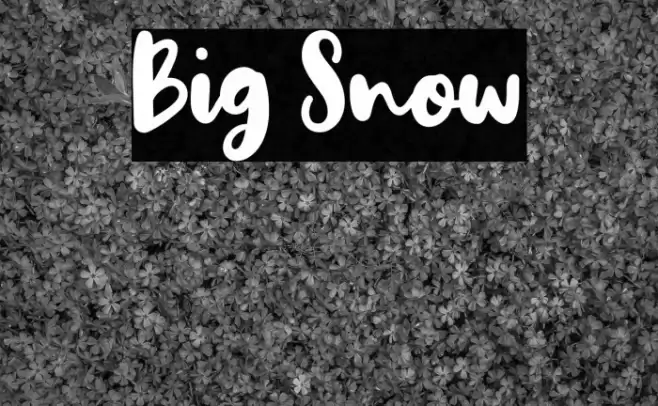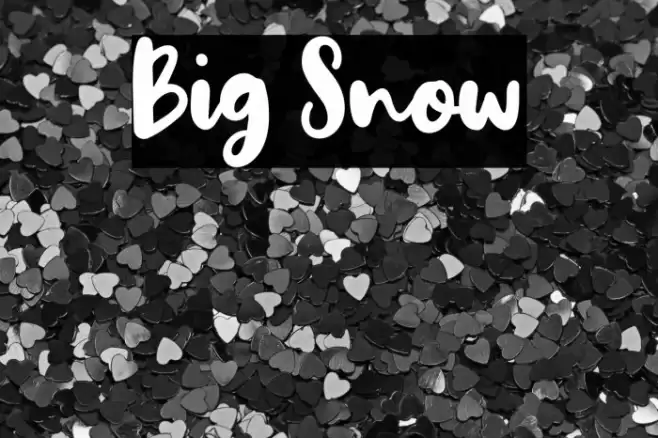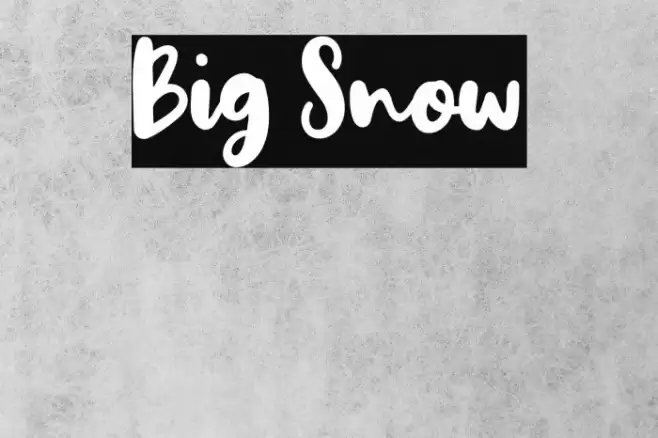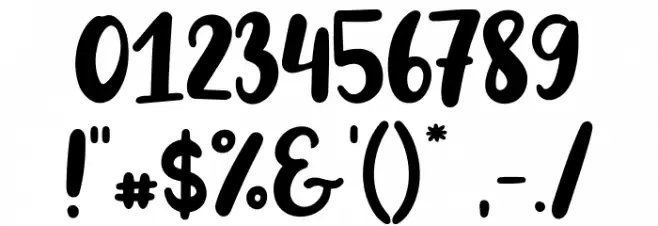
Big Snow Font
Big Snow Description
This font features a bold and playful script style, characterized by its thick, rounded strokes and smooth curves. The uppercase letters are bold and prominent, while the lowercase letters maintain a consistent flow with a slightly more delicate touch. The numbers and special characters follow the same bold and rounded style, ensuring uniformity across all characters. The font exudes a friendly and approachable vibe, making it suitable for projects that require a personal and informal touch. Its boldness ensures readability, while the script style adds a touch of elegance and creativity.
A bold, playful script font with rounded strokes and smooth curves from Uncategorized fonts.
- Proposed Projects: Ideal for greeting cards, invitations, playful branding, and social media graphics.
- Overall Style: Playful, Modern
- Use Case: Logos, Headlines, Invitations